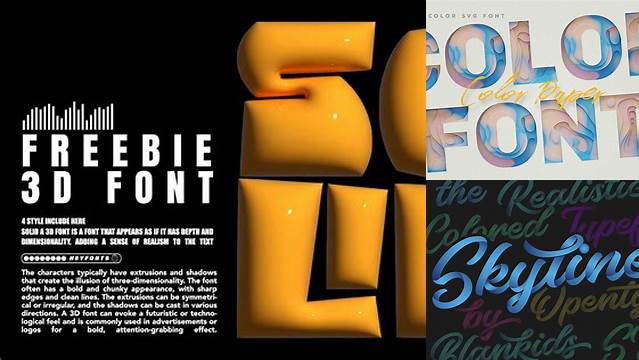
Free 3D SVG Fonts: Download Now!
Hey guys! Are you looking to add some serious depth and dimension to your design projects? Well, you've come to the right place! We're diving deep into the world of free 3D SVG fonts, and trust me, it's a game-changer. Forget those flat, boring letters; these fonts pop right off the screen, giving your text a unique and eye-catching look. Whether you're designing logos, websites, posters, or anything else, 3D SVG fonts can take your creations to the next level. So, buckle up, because we're about to explore everything you need to know about finding, using, and rocking these awesome fonts!
1. Understanding 3D SVG Fonts
So, what exactly are 3D SVG fonts? Let's break it down. SVG stands for Scalable Vector Graphics, which means these fonts are created using vector graphics. This allows them to be scaled infinitely without losing quality, unlike raster images that can become pixelated when enlarged. The "3D" aspect comes from the illusion of depth and dimension added to the font design. These fonts often use techniques like shading, perspective, and layering to create a three-dimensional effect. Free 3D SVG fonts are particularly appealing because they offer this advanced visual style without costing you a penny. Understanding the underlying technology helps you appreciate the versatility and potential of these fonts in your design work. Using SVG also means that the fonts are lightweight and can be easily integrated into web projects without slowing down page load times.
5. Creating Your Own 3D SVG Fonts
Feeling ambitious? Why not try creating your own free 3D SVG fonts? While it might sound intimidating, it's definitely achievable with the right tools and a bit of practice. Software like FontForge and Glyphs are popular choices for creating custom fonts. You can start by designing your basic letterforms and then add the 3D effects using techniques like layering, shading, and perspective. There are tons of tutorials and resources online that can guide you through the process. Creating your own fonts gives you complete control over the design and allows you to create truly unique and personalized typography. Plus, it's a great way to develop your design skills and stand out from the crowd.
6. The Impact of 3D Fonts on Visual Appeal
Let's talk about why 3D fonts are so effective. The impact of 3D fonts on visual appeal is undeniable. They immediately grab attention and add a sense of depth and realism to your designs. By creating a three-dimensional effect, these fonts make your text stand out from the background, making it more engaging and memorable. 3D fonts can also convey a sense of professionalism and sophistication, depending on the style and design. Whether you're designing a logo, website, or marketing materials, using free 3D SVG fonts can elevate your visual communication and leave a lasting impression on your audience. They can transform a simple message into a visually stunning statement.
7. Using 3D Fonts in Logo Design
Logos are all about making a statement, and using free 3D SVG fonts can help you do just that. Incorporating a 3D font into your logo design can create a sense of depth, dimension, and visual interest. It can help your logo stand out from the competition and make it more memorable. When using 3D fonts in logo design, consider the overall brand identity and choose a font that aligns with the company's values and personality. A bold, futuristic 3D font might be perfect for a tech startup, while a more elegant and refined 3D font could be suitable for a luxury brand. Experiment with different styles and effects to find the perfect font that captures the essence of your brand.
8. 3D Fonts for Website Headers
Website headers are prime real estate for grabbing visitors' attention, and free 3D SVG fonts can be a great way to do it. Using a 3D font in your website header can create a visual focal point and make a strong first impression. It can also help convey the website's message and personality. When choosing a 3D font for your website header, consider the overall design and user experience. Make sure the font is legible and easy to read, even at smaller sizes. Also, keep in mind the website's color scheme and choose a font that complements the overall design. A well-designed 3D font in your website header can significantly enhance the website's visual appeal and user engagement.
9. Enhancing Posters with 3D Typography
Posters are all about visual impact, and enhancing posters with 3D typography can take them to the next level. Using free 3D SVG fonts in your poster design can create a sense of depth, dimension, and visual interest. It can help your poster stand out from the crowd and make it more memorable. When designing posters with 3D typography, consider the overall message and target audience. Choose a font that aligns with the poster's theme and tone. Experiment with different styles and effects to create a visually stunning and impactful design. Whether you're promoting an event, product, or cause, 3D typography can help you capture attention and get your message across.
10. The Future of 3D Fonts in Design
The future of 3D fonts in design looks bright! As technology continues to evolve, we can expect to see even more innovative and sophisticated 3D font designs. The rise of virtual reality (VR) and augmented reality (AR) will likely drive demand for 3D fonts that can be seamlessly integrated into immersive experiences. We may also see more interactive 3D fonts that respond to user input and create dynamic visual effects. Free 3D SVG fonts will continue to play a significant role in democratizing design and making advanced typography accessible to a wider audience. As designers continue to explore the possibilities of 3D typography, we can expect to see even more creative and groundbreaking applications in the years to come.
11. Combining 3D Fonts with Other Design Elements
One of the keys to successful design is knowing how to combine different elements effectively. When working with 3D fonts, it's important to consider how they interact with other design elements such as images, colors, and shapes. Experiment with different combinations to see what works best for your project. For example, you might pair a bold 3D font with a minimalist background to create a striking contrast. Or, you could use a subtle 3D font with a textured background to add depth and dimension. The possibilities are endless! Just remember to maintain a sense of balance and harmony in your design to ensure that all the elements work together seamlessly. Finding the right balance when combining free 3D SVG fonts with other elements is key.
12. 3D Font Styles: Bold and Dramatic
When you want to make a statement, bold and dramatic 3D font styles are the way to go. These fonts are designed to grab attention and create a strong visual impact. They often feature thick strokes, sharp angles, and exaggerated 3D effects. Bold and dramatic 3D fonts are perfect for headlines, posters, and other applications where you want to make a big impression. However, it's important to use them sparingly and in moderation. Overusing bold and dramatic fonts can be overwhelming and detract from the overall design. Instead, use them strategically to highlight key messages and create focal points. When using these free 3D SVG fonts, always consider the overall message.
13. 3D Font Styles: Subtle and Elegant
For a more refined and sophisticated look, consider using subtle and elegant 3D font styles. These fonts feature delicate strokes, smooth curves, and understated 3D effects. They're perfect for applications where you want to convey a sense of class and sophistication. Subtle and elegant 3D fonts are often used in logo design, branding, and website design. They can also be used in print materials such as brochures and invitations. When using subtle and elegant 3D fonts, it's important to pay attention to the details. Make sure the font is legible and easy to read, even at smaller sizes. Also, consider the font's weight and spacing to ensure that it looks balanced and harmonious. Choosing these free 3D SVG fonts can give a touch of elegance.
14. 3D Font Styles: Futuristic and Modern
If you're looking to create a cutting-edge and tech-savvy look, futuristic and modern 3D font styles are an excellent choice. These fonts often feature geometric shapes, sharp angles, and bold 3D effects. They're perfect for representing technology companies, startups, and other businesses that want to project a forward-thinking image. Futuristic and modern 3D fonts can be used in website design, app design, and marketing materials. They can also be used in video games and other digital media. When using futuristic and modern 3D fonts, it's important to stay consistent with the overall design aesthetic. Make sure the font complements the other elements in your design and doesn't look out of place. Free 3D SVG fonts that have a futuristic look can make your project stand out.
15. 3D Font Styles: Retro and Vintage
For a nostalgic and classic look, consider using retro and vintage 3D font styles. These fonts often feature rounded edges, decorative serifs, and vintage-inspired 3D effects. They're perfect for representing businesses that want to evoke a sense of nostalgia and tradition. Retro and vintage 3D fonts can be used in logo design, branding, and website design. They can also be used in print materials such as posters and packaging. When using retro and vintage 3D fonts, it's important to pay attention to the details. Make sure the font is legible and easy to read, even at smaller sizes. Also, consider the font's color and texture to enhance the vintage feel. Using free 3D SVG fonts with a retro vibe can add character to your designs.
16. Tips for Making 3D Fonts Legible
While 3D fonts can add visual interest to your designs, it's important to ensure that they remain legible. Here are some tips for making 3D fonts legible: Choose a font with clear and well-defined letterforms. Avoid fonts with overly complex or decorative designs, as they can be difficult to read. Use a font size that is appropriate for the context. Smaller fonts can be difficult to read, especially when they have 3D effects. Ensure sufficient contrast between the font and the background. This will help the font stand out and make it easier to read. Avoid using too many 3D effects. Overdoing the 3D effects can make the font look cluttered and difficult to read. These free 3D SVG fonts need to be readable to be effective.
17. Common Mistakes to Avoid with 3D Fonts
Using 3D fonts effectively requires careful consideration and attention to detail. Here are some common mistakes to avoid: Overusing 3D fonts. Using too many 3D fonts in a single design can be overwhelming and detract from the overall aesthetic. Choosing a font that is not appropriate for the context. Make sure the font aligns with the overall message and tone of the design. Neglecting legibility. Always prioritize legibility when using 3D fonts. Make sure the font is easy to read, even at smaller sizes. Ignoring contrast. Ensure sufficient contrast between the font and the background to make it stand out. Not testing the font across different devices and platforms. Always test the font to ensure that it looks good on different screens and browsers. Avoiding these mistakes when using free 3D SVG fonts will improve your design.
18. Using 3D Fonts for Social Media Graphics
Social media graphics are a great way to engage your audience and promote your brand. Using 3D fonts in your social media graphics can help you create eye-catching and memorable visuals. When using 3D fonts for social media graphics, consider the platform and target audience. Choose a font that is appropriate for the platform and aligns with the audience's preferences. Keep the text concise and easy to read. Social media users often scroll quickly, so it's important to grab their attention with a clear and concise message. Use high-quality images and graphics. This will enhance the overall visual appeal of your social media graphics. Remember to always check the license agreements for the free 3D SVG fonts you use.
19. 3D Fonts and Mobile Responsiveness
In today's mobile-first world, it's essential to ensure that your designs are mobile-responsive. This means that they should adapt seamlessly to different screen sizes and devices. When using 3D fonts, it's important to consider how they will render on mobile devices. Some 3D fonts may not display correctly on smaller screens or may take too long to load. To ensure mobile responsiveness, choose 3D fonts that are lightweight and optimized for mobile devices. Test your designs on different devices and screen sizes to ensure that the fonts look good and are easy to read. Using free 3D SVG fonts that are mobile-friendly will improve user experience.
20. Optimizing 3D Fonts for Web Performance
Web performance is a critical factor in user experience and search engine ranking. Slow-loading websites can frustrate users and lead to higher bounce rates. When using 3D fonts on your website, it's important to optimize them for web performance. This means reducing the file size of the fonts and ensuring that they load quickly. Use font formats that are optimized for the web, such as WOFF and WOFF2. These formats offer better compression and performance than older formats like TTF and OTF. Consider using a font loading strategy that prioritizes the display of text. This will ensure that users can see the text content even if the 3D fonts take a bit longer to load. Optimizing free 3D SVG fonts for web use will make your site faster and better.
21. Mixing and Matching Different 3D Font Styles
Feeling adventurous? Try mixing and matching different 3D font styles to create a unique and dynamic look. Just be careful not to overdo it! Start by selecting a primary font style that will serve as the foundation for your design. Then, experiment with adding secondary font styles to create contrast and visual interest. Consider using different font weights, sizes, and styles to create a sense of hierarchy and emphasis. Remember to maintain a sense of balance and harmony in your design. Avoid using too many different font styles, as this can make the design look cluttered and confusing. This is a great way to make your free 3D SVG fonts really pop.
22. The Psychology Behind Using 3D Fonts
Fonts aren't just about aesthetics; they also evoke emotions and associations. The psychology behind using 3D fonts is rooted in their ability to create a sense of depth, realism, and visual impact. 3D fonts can convey a sense of professionalism, sophistication, and innovation, depending on the style and design. They can also be used to create a sense of playfulness, excitement, and fun. When choosing 3D fonts for your designs, consider the emotions and associations that you want to evoke. Select fonts that align with the overall message and tone of your design. Use these free 3D SVG fonts to create the desired emotional impact.
23. Best Practices for 3D Font Kerning and Tracking
Kerning and tracking are essential aspects of typography that affect the overall legibility and visual appeal of your text. Kerning refers to the spacing between individual letter pairs, while tracking refers to the overall spacing between all the letters in a word or phrase. When using 3D fonts, it's important to pay attention to kerning and tracking to ensure that the text looks balanced and harmonious. Adjust the kerning and tracking as needed to create a consistent and visually pleasing appearance. Use a professional design tool that offers advanced kerning and tracking features. This will give you greater control over the spacing and alignment of your text. Proper kerning and tracking is crucial when working with free 3D SVG fonts.
24. Accessibility Considerations for 3D Fonts
Accessibility is a crucial aspect of design that ensures that your content is usable by everyone, including people with disabilities. When using 3D fonts, it's important to consider accessibility to ensure that your text is readable and understandable by all users. Avoid using 3D fonts that are overly complex or decorative, as they can be difficult to read for people with visual impairments. Ensure sufficient contrast between the font and the background. This will help people with low vision to read the text more easily. Provide alternative text descriptions for images and graphics that contain 3D fonts. This will allow screen readers to convey the content to people with visual impairments. Make sure your free 3D SVG fonts are accessible to everyone.
25. Advanced Techniques for Customizing 3D Fonts
Want to take your 3D font game to the next level? Try exploring some advanced techniques for customizing 3D fonts. Experiment with different lighting effects to create a more realistic and dynamic look. Use gradients and textures to add depth and dimension to your fonts. Create custom 3D models and integrate them with your fonts. Explore different rendering techniques to achieve unique visual styles. Use these techniques to create free 3D SVG fonts that are truly unique.
26. Animating 3D Fonts for Web and Video
Animating 3D fonts can add a dynamic and engaging element to your web and video projects. Use animation to reveal the font gradually, creating a sense of anticipation. Animate the 3D effects, such as shadows and highlights, to make the font appear more dynamic. Use animation to create interactive typography that responds to user input. Explore different animation tools and techniques to achieve unique visual styles. Animating free 3D SVG fonts can really make them stand out.
27. Converting 3D Fonts to Different Formats
Sometimes, you may need to convert 3D fonts to different formats to ensure compatibility with different software and platforms. Use a font conversion tool to convert the fonts to different formats, such as TTF, OTF, WOFF, and SVG. Ensure that the converted fonts retain their 3D effects and legibility. Test the converted fonts on different devices and platforms to ensure that they display correctly. Converting free 3D SVG fonts ensures they work everywhere.
28. Troubleshooting Common 3D Font Issues
Encountering issues with 3D fonts? Don't worry, here are some troubleshooting tips: Check for font compatibility issues. Make sure the font is compatible with your operating system and design software. Clear your font cache. Sometimes, outdated font files can cause conflicts. Restart your computer. This can often resolve minor font-related issues. Contact the font vendor or designer for support. They may be able to provide additional assistance. These tips can help with common issues with free 3D SVG fonts.
29. Resources for Learning More About 3D Typography
Want to deepen your knowledge of 3D typography? Here are some resources to explore: Online courses and tutorials on platforms like Skillshare and Udemy. Design blogs and websites that feature articles and tutorials on typography. Books on typography and graphic design. Online forums and communities where you can connect with other designers and typographers. Learning more will help you master free 3D SVG fonts.